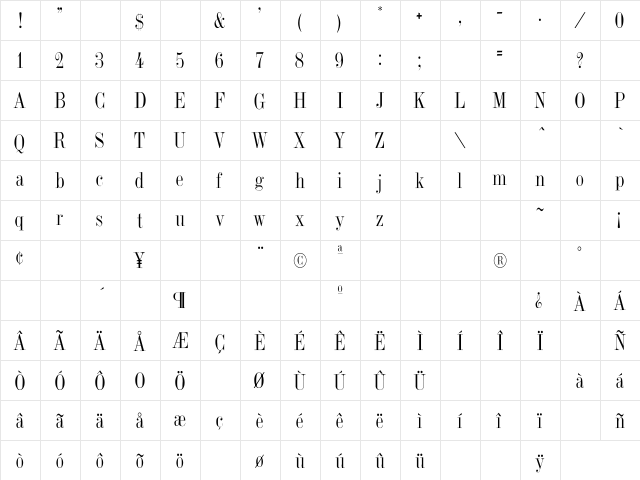
Dubiel (Plain)Thin Regular
Design Context for Dubiel (Plain)Thin Typeface
Dubiel (Plain)Thin is a composed and adaptable typeface that performs quietly and consistently across a wide range of design contexts. The delicate stroke weight brings airiness and refinement to layouts.